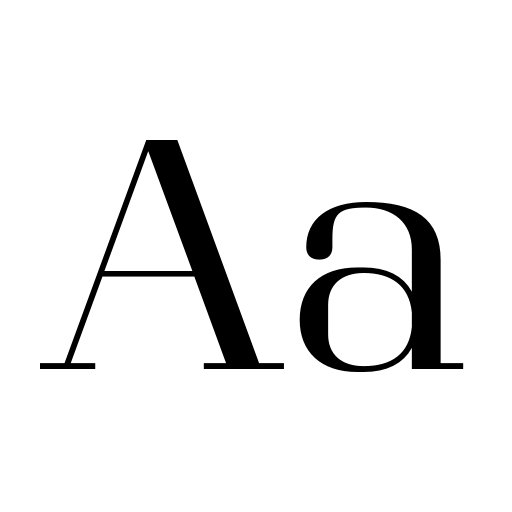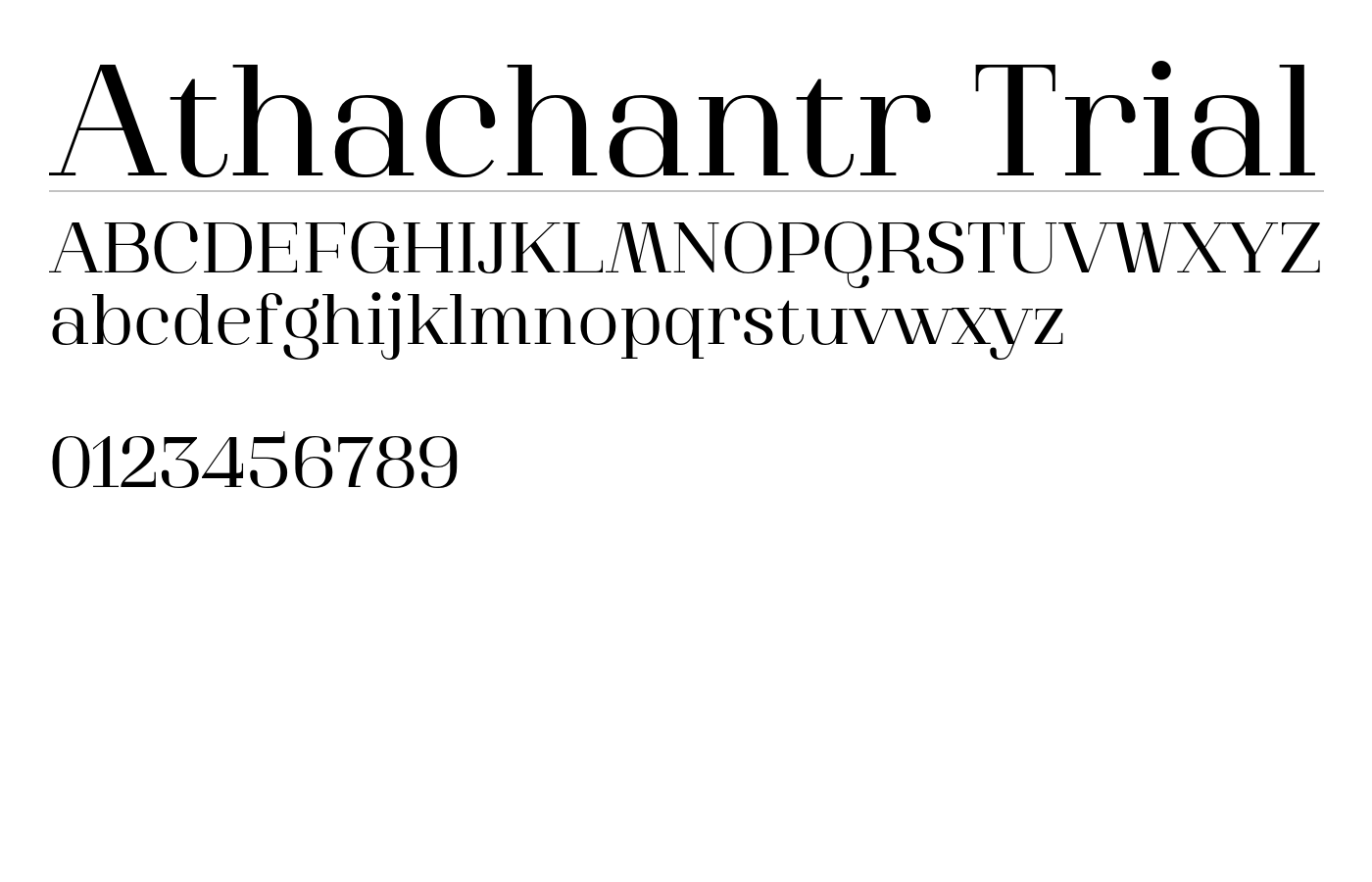
Athachantr Trial is an elegant serif font with a refined modern feel, featuring high contrast between thick and thin strokes and sharp, delicate serifs. Its tall, narrow letterforms and pronounced x-height give it a sophisticated, stylish presence, making it ideal for fashion branding, editorial headlines, and luxury packaging that require a touch of class and readability. This font combines classic elegance with contemporary design, perfect for projects aiming to communicate sophistication and timelessness.
| Font family | Athachantr Trial Font |
| Languages supported | Latin, Thai, Symbols |
| Designer | Anupap Jaichumnan |